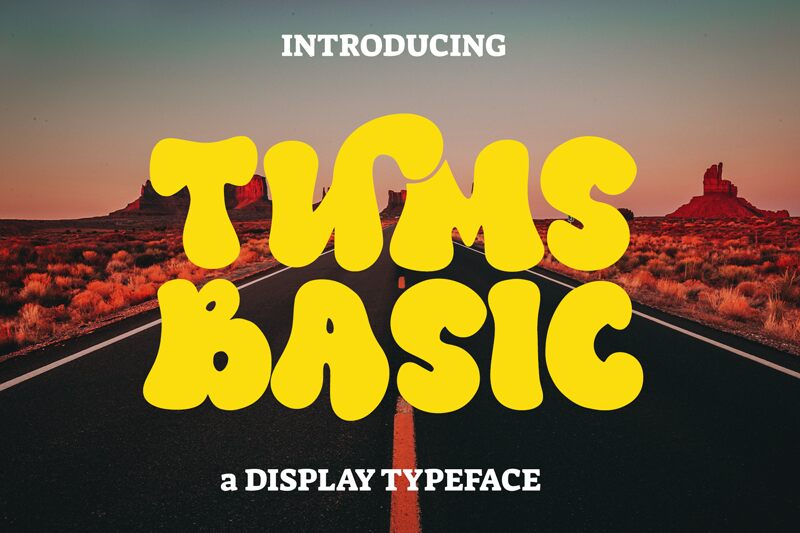
Looking for a groovy display font that packs a punch? Look no further than Tums Basic, designed by dianhaniffanhadi. With its extra-bold weight and eye-catching style, this font is perfect for projects that demand attention. Use it to create retro-inspired posters, funky branding materials, or even playful headlines. The possibilities are endless with Tums Basic – let your creativity run wild!
Tums Basic